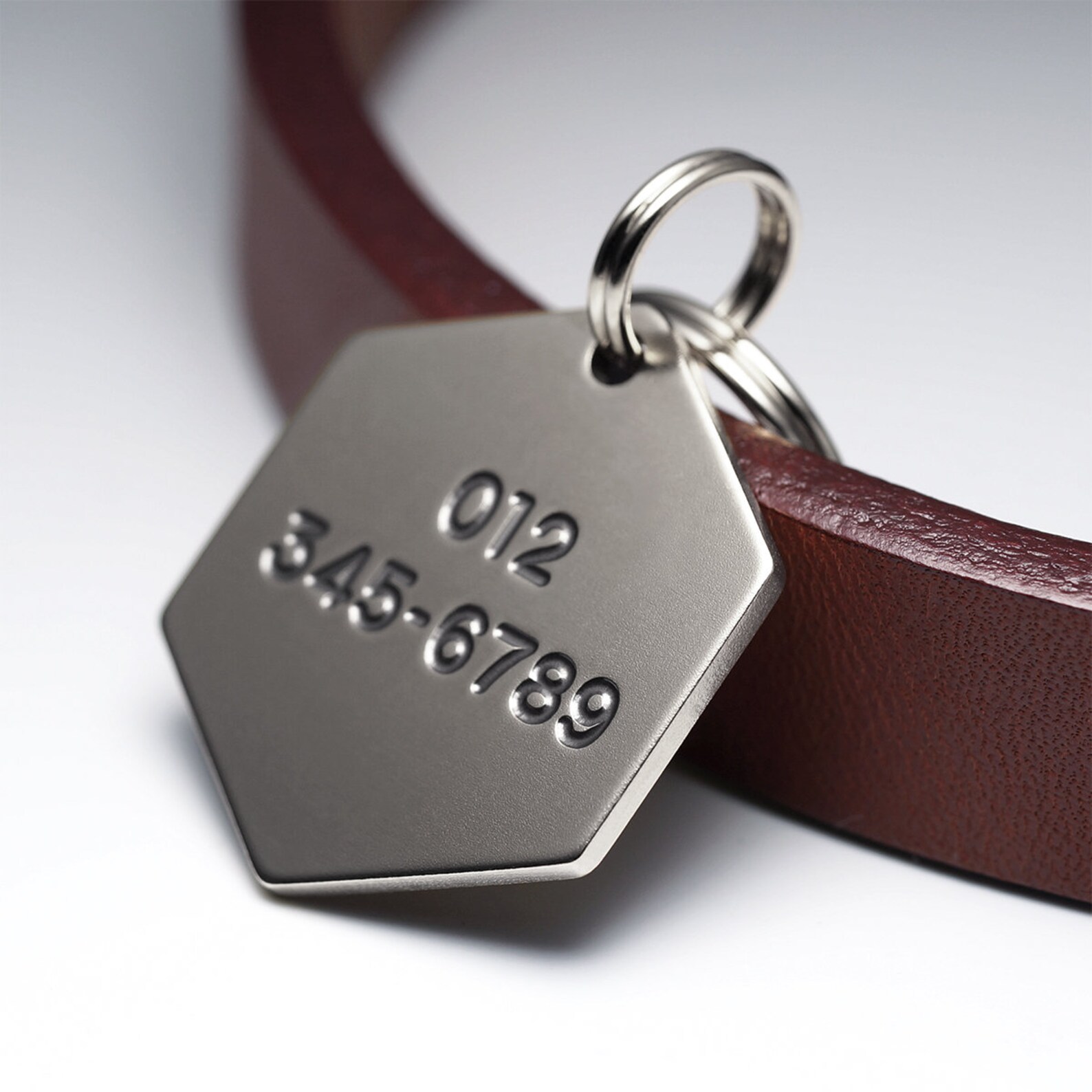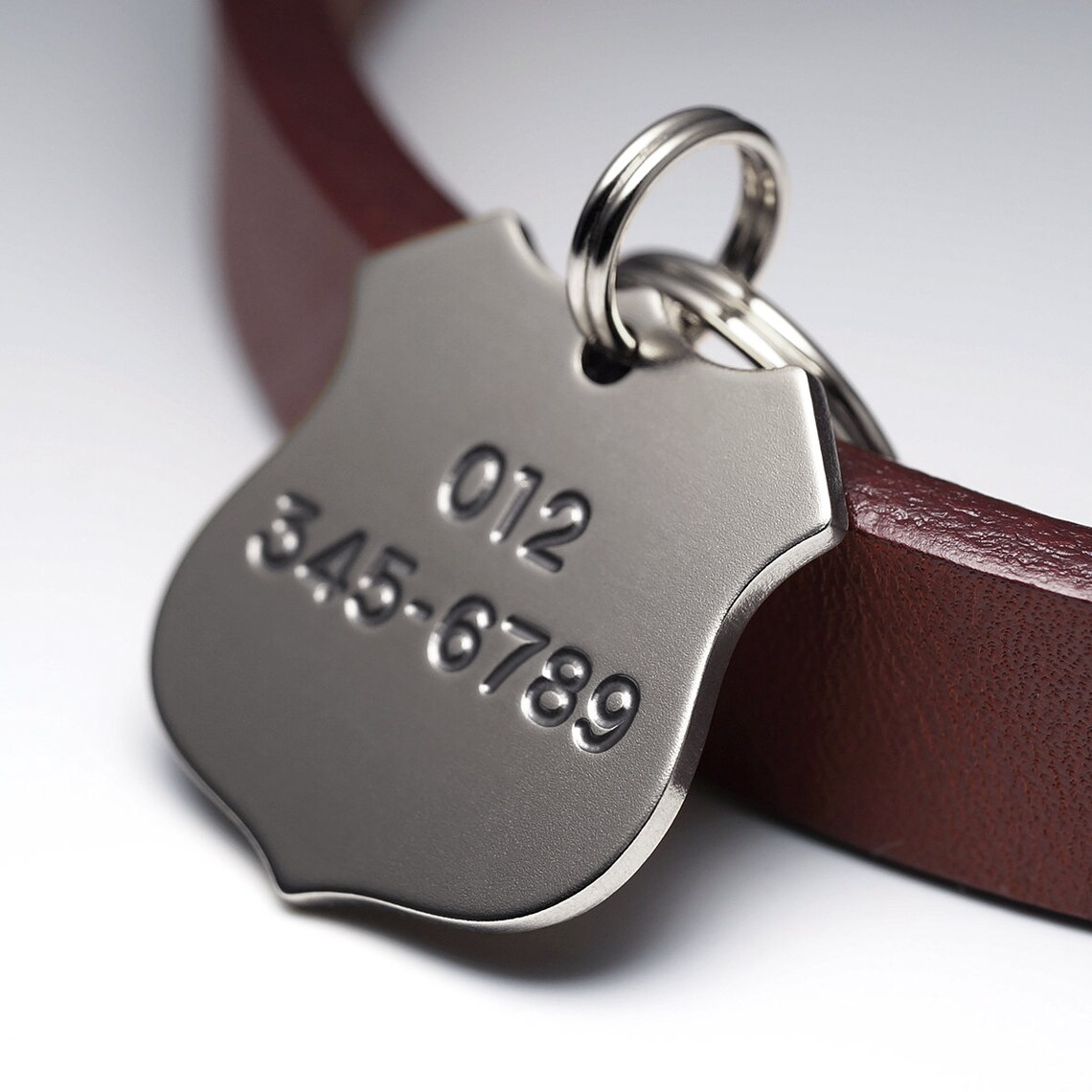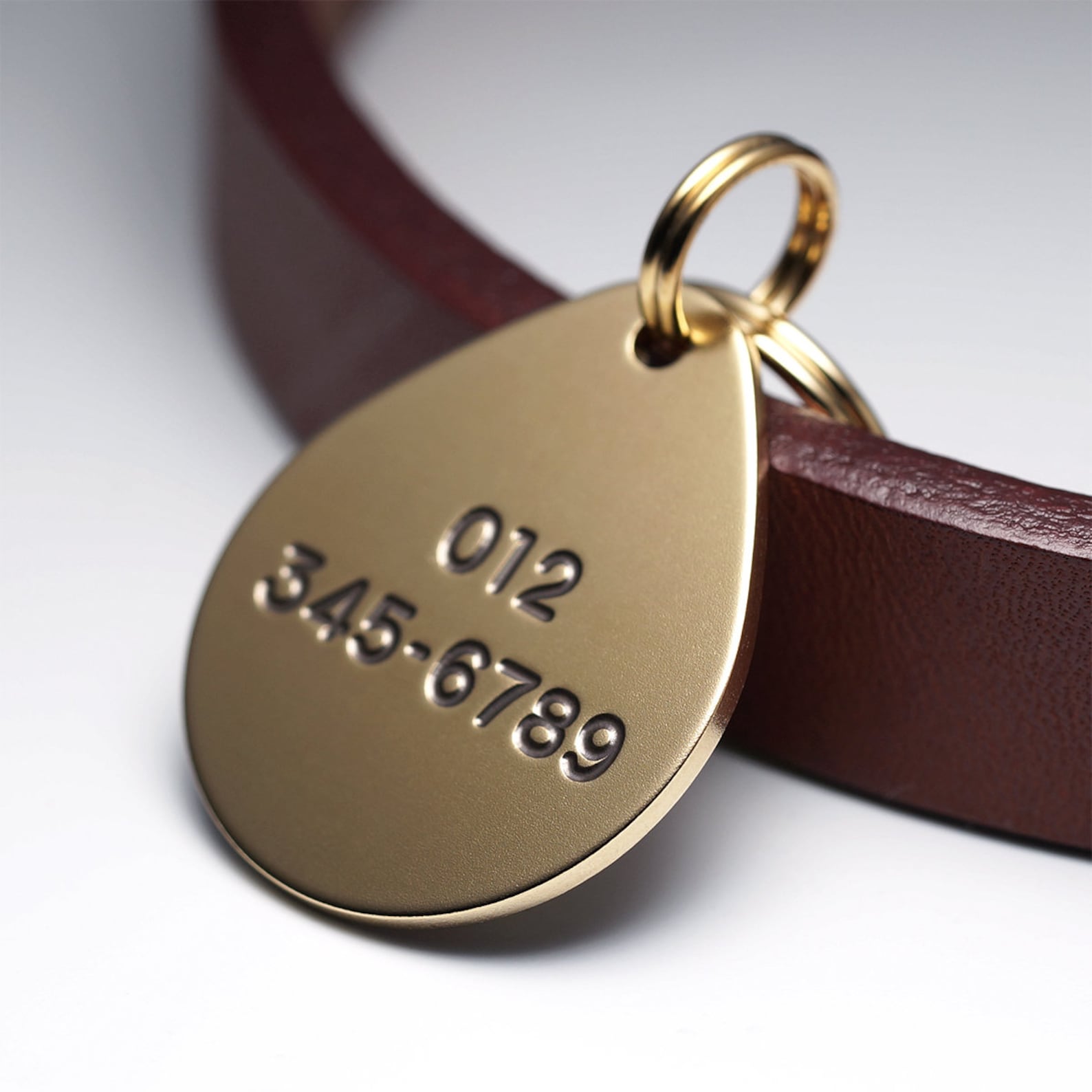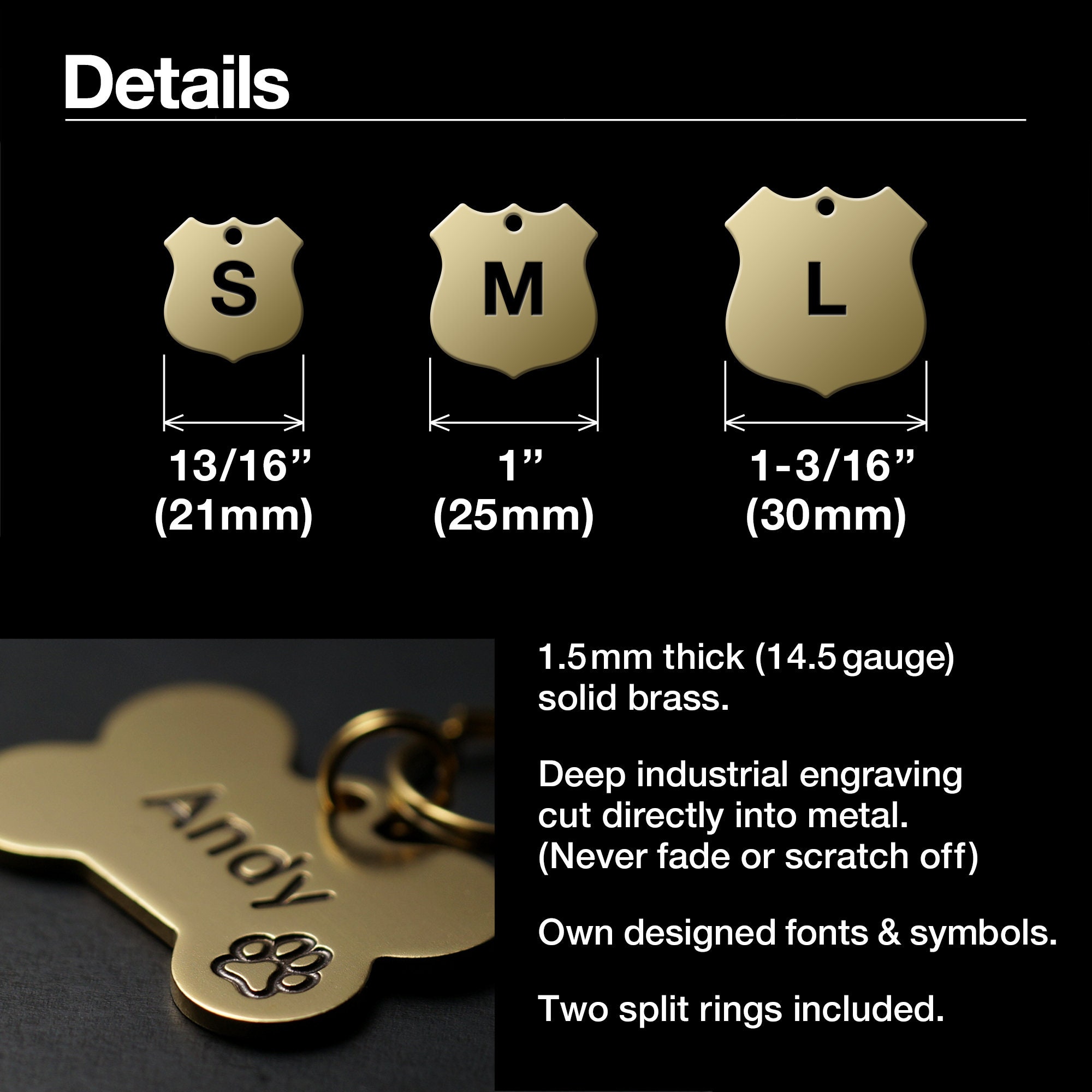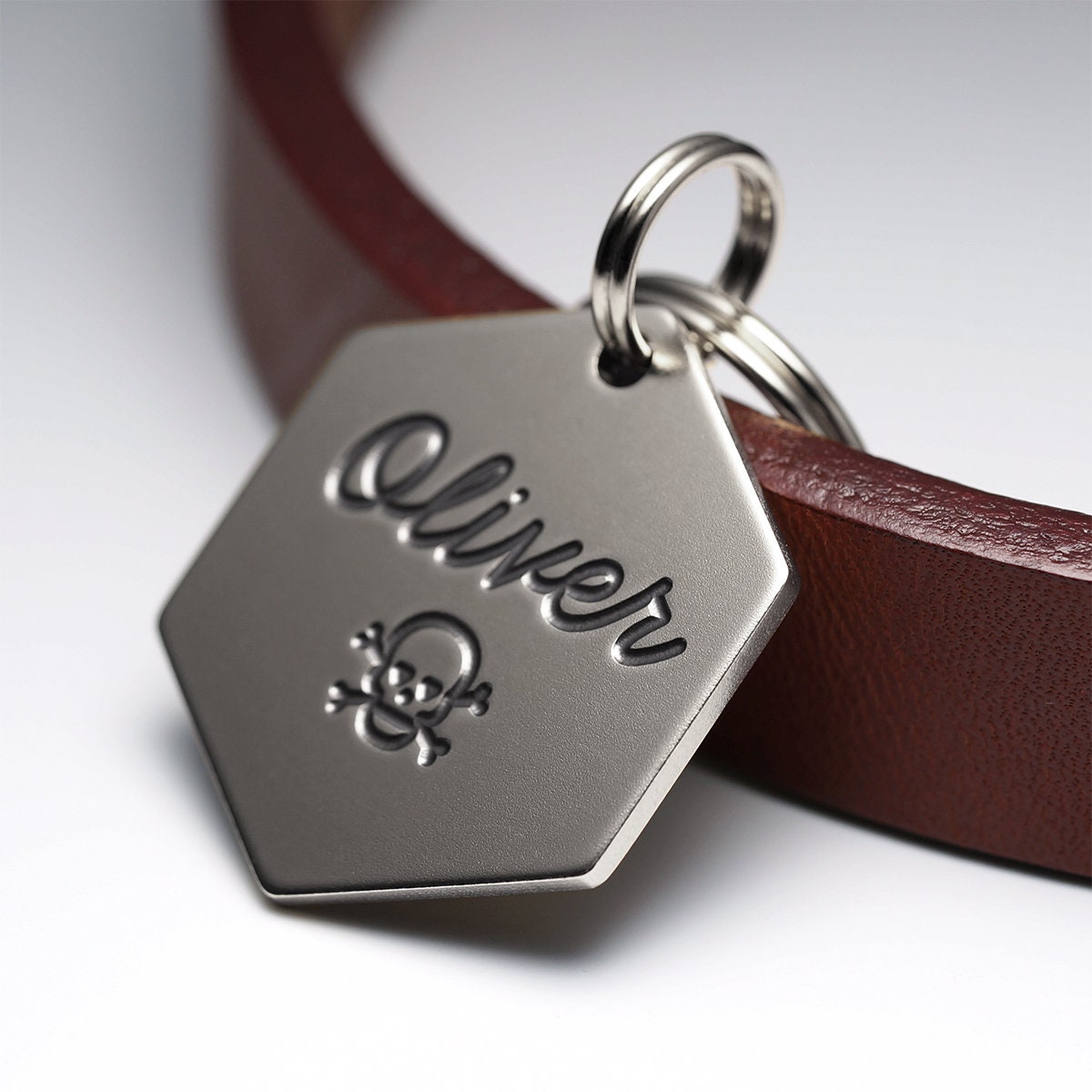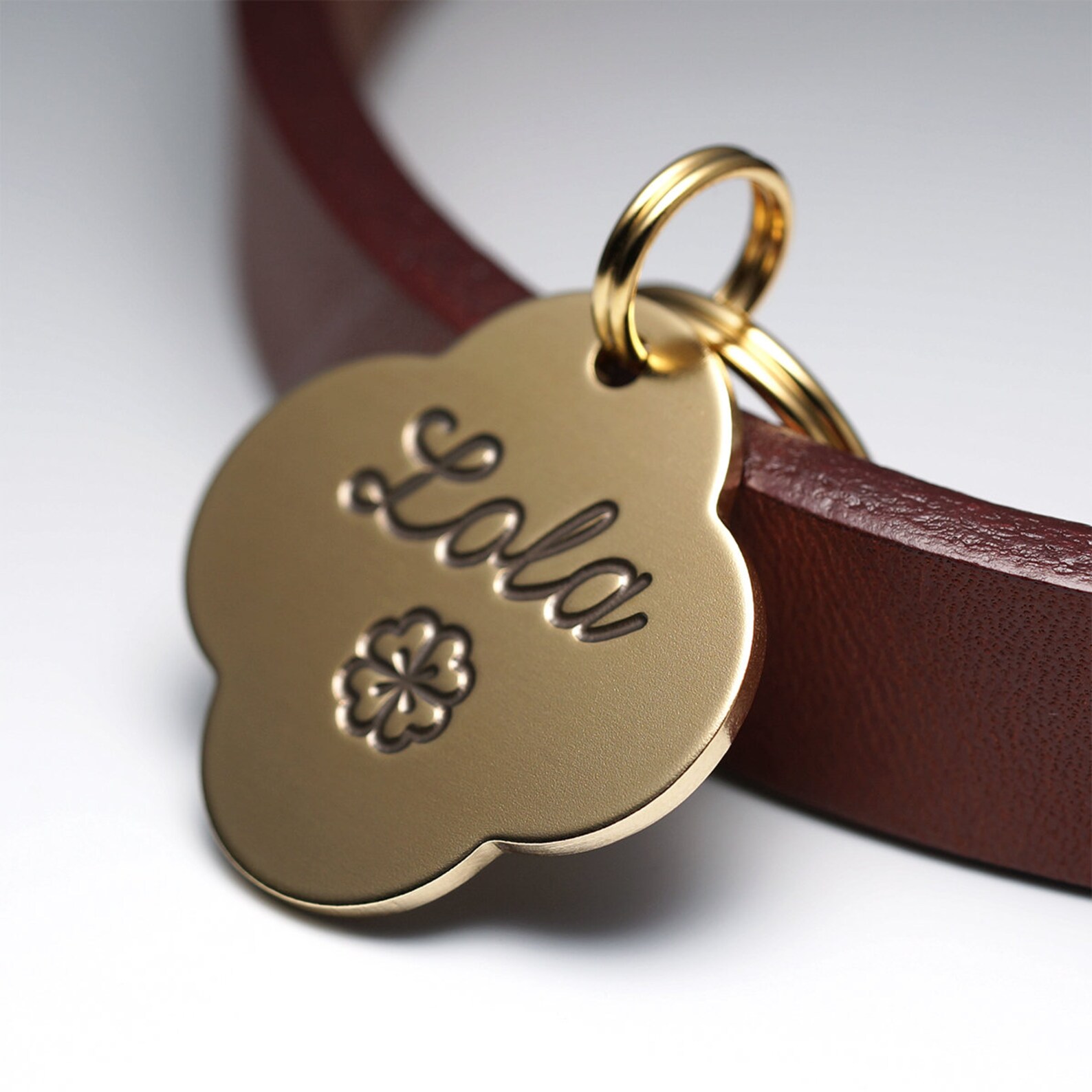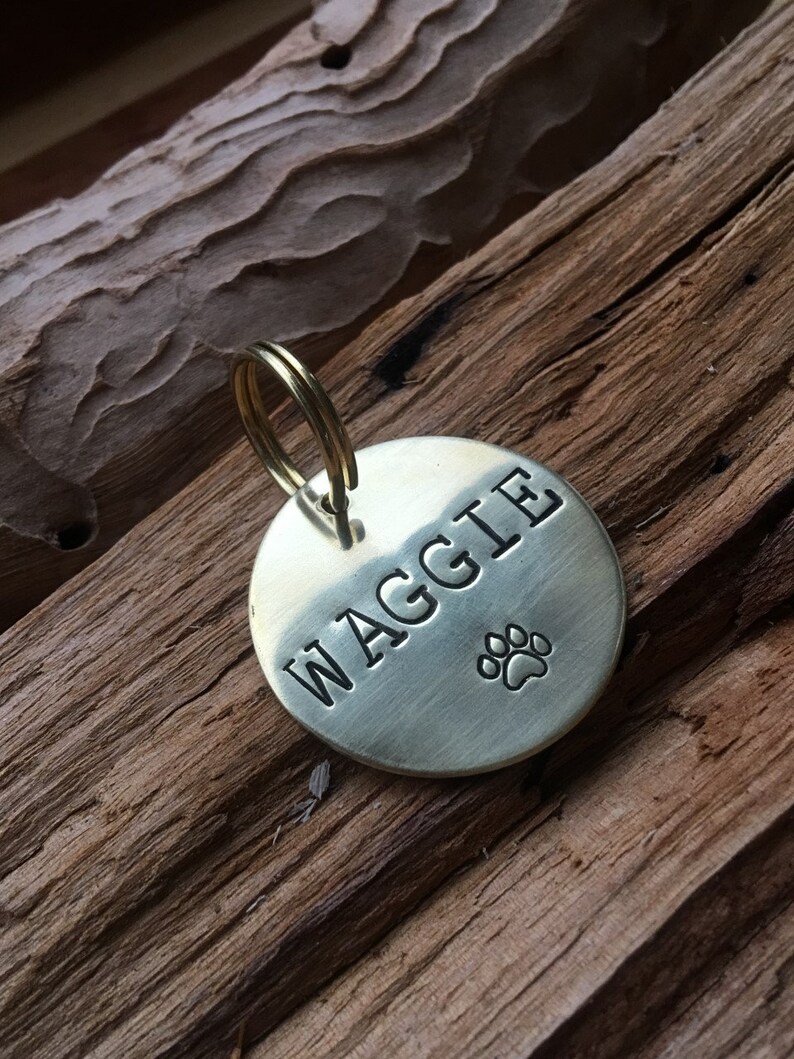
Dog Tag Font Size . Explore dog tag fonts at myfonts. In this article, we will delve into the importance of selecting the appropriate dog tag size,. Choosing the right size for your dog’s tag is important for a variety of reasons. Choose a font size and style that is easily readable. Avoid using overly decorative or intricate fonts that may make the. Sometimes, it is hard to see on the computer screen exactly how the text will look when the dog tags are stamped. For example, in the united states, the recommended minimum text size is 3/16. The font used on military dog tags is called “military stencil.” this font is specifically designed for easy legibility and durability, making it ideal for use on dog tags. Unleash your design potential today! Most areas specify a minimum text size for engraving or stamping text onto dog tags. Discover a world of captivating typography for your creative projects. Military dog tags and see a preview of what they will look like before ordering. Not sure how to design your tags? Contents what is the standard font size used on.
Most areas specify a minimum text size for engraving or stamping text onto dog tags. In this article, we will delve into the importance of selecting the appropriate dog tag size,. Explore dog tag fonts at myfonts. The font used on military dog tags is called “military stencil.” this font is specifically designed for easy legibility and durability, making it ideal for use on dog tags. Choosing the right size for your dog’s tag is important for a variety of reasons. Military dog tags and see a preview of what they will look like before ordering. For example, in the united states, the recommended minimum text size is 3/16. Contents what is the standard font size used on. Not sure how to design your tags? Sometimes, it is hard to see on the computer screen exactly how the text will look when the dog tags are stamped.
Dog Tag Font Size Military dog tags and see a preview of what they will look like before ordering. Most areas specify a minimum text size for engraving or stamping text onto dog tags. Choosing the right size for your dog’s tag is important for a variety of reasons. Contents what is the standard font size used on. Sometimes, it is hard to see on the computer screen exactly how the text will look when the dog tags are stamped. In this article, we will delve into the importance of selecting the appropriate dog tag size,. Explore dog tag fonts at myfonts. Not sure how to design your tags? Choose a font size and style that is easily readable. For example, in the united states, the recommended minimum text size is 3/16. Avoid using overly decorative or intricate fonts that may make the. Unleash your design potential today! Military dog tags and see a preview of what they will look like before ordering. The font used on military dog tags is called “military stencil.” this font is specifically designed for easy legibility and durability, making it ideal for use on dog tags. Discover a world of captivating typography for your creative projects.